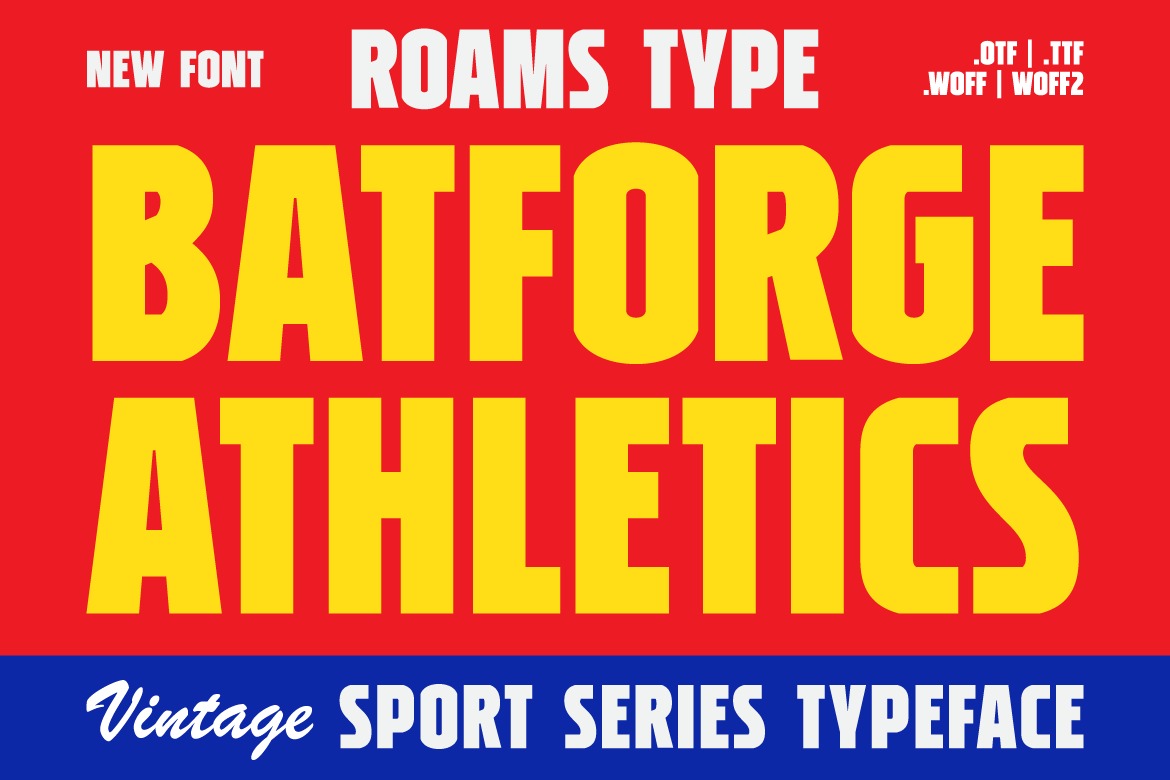
Batforge Athletics – Bold Sans Serif Font
Batforge Athletics – Bold Sans Serif Font is a clean and thoughtfully built typeface that works seamlessly for both professional branding and everyday creative uses. Batforge Athletics is a bold vintage sports typeface inspired by classic American athletic lettering, varsity posters, and retro championship branding. Designed with strong geometric shapes and condensed proportions, this font delivers a powerful and energetic look perfect for sports-related designs.